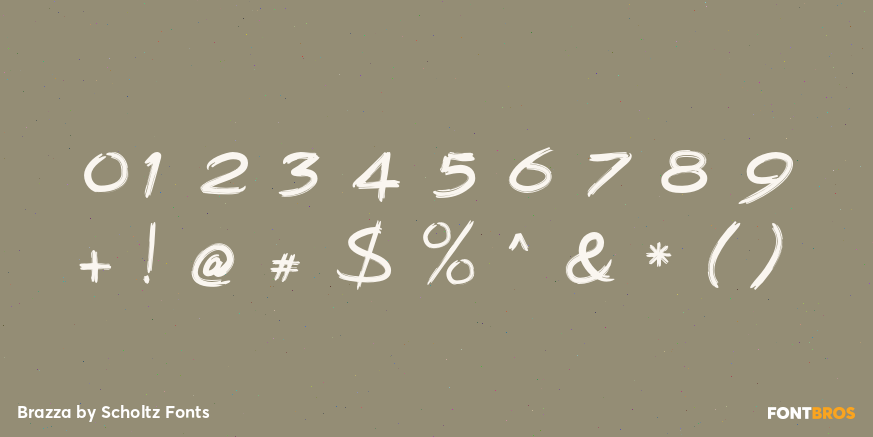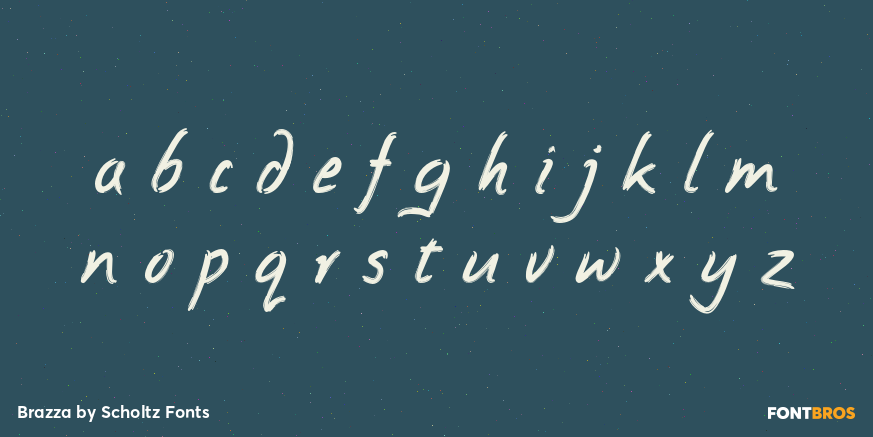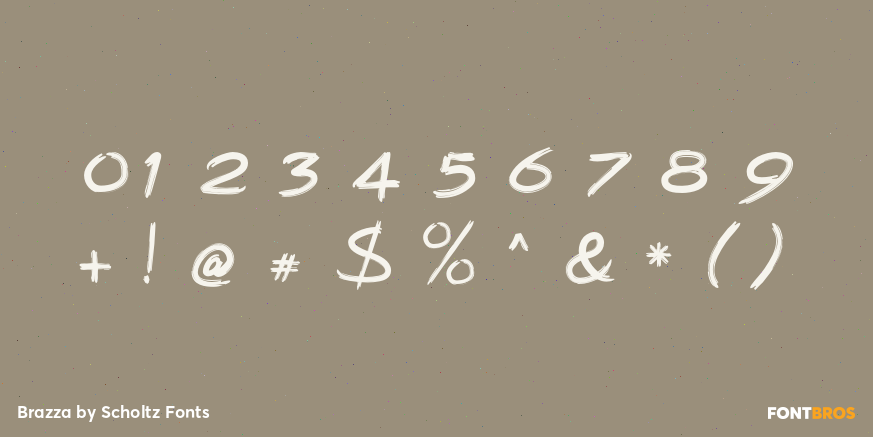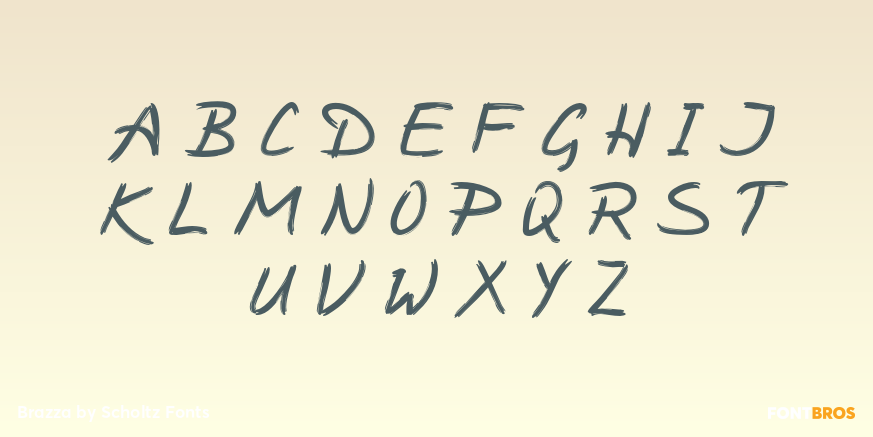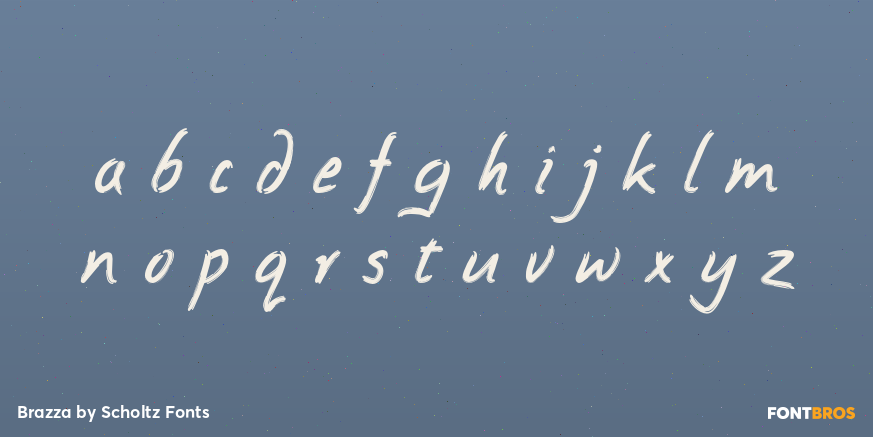
Brazza
Font Family by Scholtz Fonts
Brazza is a a font that fuses the look of handwriting, brush and comic script. It is loose, very versatile and informal, yet it is very readable.
The font is fully professional: carefully letterspaced and kerned. It contains over 235 characters - (upper and lower case characters, punctuation, numerals, symbols and accented characters are present).